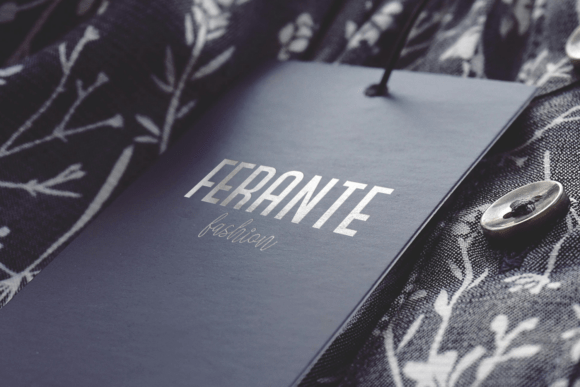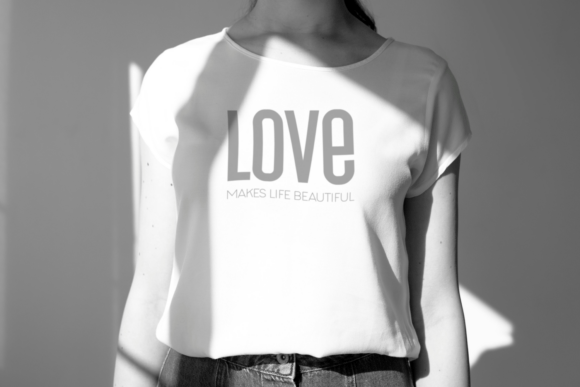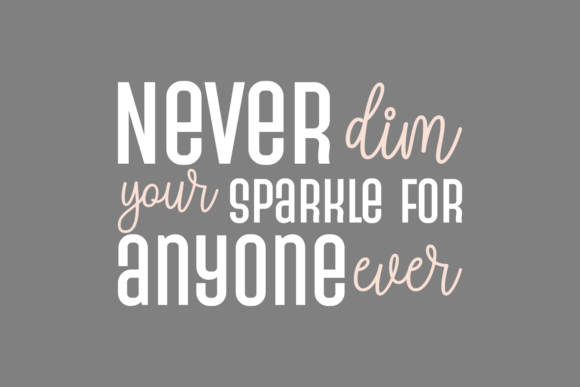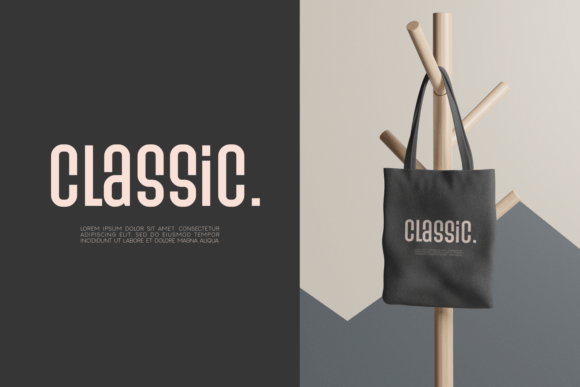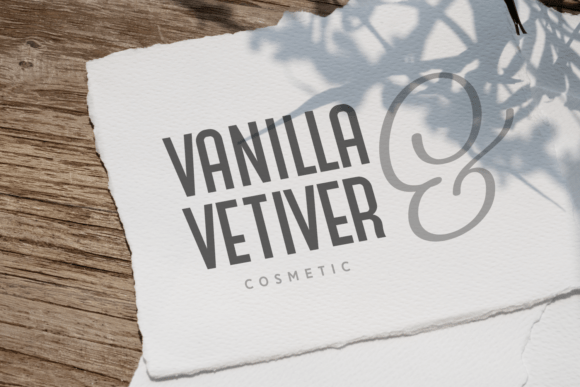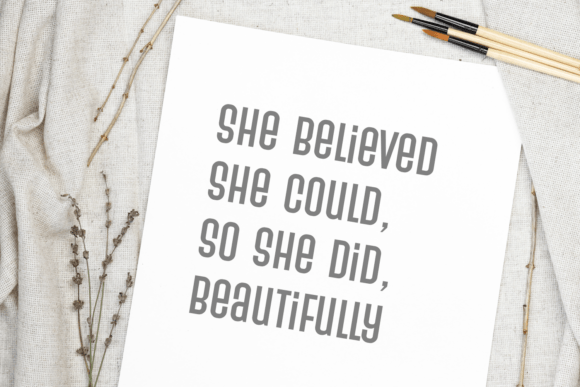
Introduction to Modern Luxury Font
Step up and embrace the elegance of “Modern Luxury”.
This is a sans serif font designed specifically to elevate your style and carve out a niche for itself among premium designs “Modern Luxury” makes its presence felt in modern, display, and elegant works, adding a touch of class and refinement.
Key Features of Modern Luxury Font
Why Choose Modern Luxury Font?
Modern Luxury Font offers exceptional quality and versatility, making it a valuable addition to your design toolkit. Whether you’re creating for personal projects or commercial use, Modern Luxury Font delivers professional results.